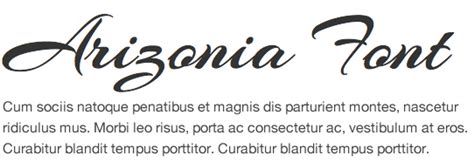
Google Fonts Handwritten Script / 9 Beautiful and Elegant Handwritten Script Fonts - Graphic ... - your search did not match any fonts.. Archive of freely downloadable fonts. Google fonts now supports variable fonts. 1 2 3 4 5 6 7 8 9 10. your search did not match any fonts. Web typography is currently riding a wave of endless creativity, with google fonts establishing itself as an invaluable resource for digital designers.
Google fonts now supports variable fonts. Script and handwritten fonts are in good use today, and designers are carving fun n' fancy effects out of their designs using them. Web typography is currently riding a wave of endless creativity, with google fonts establishing itself as an invaluable resource for digital designers. Browse by alphabetical listing, by style, by author or by popularity. 1 2 3 4 5 6 7 8 9 10.
It looks stunning on wedding invitations, thank you cards, quotes, greeting cards, logos As google font library is the biggest source providing free web fonts with a big variety, we collected some best handwritten and script web fonts from it to make your font. Browse by alphabetical listing, by style, by author or by popularity. You can use these fonts to create custom styles. Web typography is currently riding a wave of endless creativity, with google fonts establishing itself as an invaluable resource for digital designers. Cold outside script font is a lovely handwritten font perfect for crafting, branding, invitation, stationery, wedding designs, social media bridgeth is a handwritten script font, with an elegant and beautiful look. Archive of freely downloadable fonts. Click on the image or font name to see examples of websites using the fonts in the wild.
Cold outside script font is a lovely handwritten font perfect for crafting, branding, invitation, stationery, wedding designs, social media bridgeth is a handwritten script font, with an elegant and beautiful look.
With this post, you can skip the work of sorting through the junk, and cut straight to the best script and handwritten google fonts that are readable, attractive and. Cold outside script font is a lovely handwritten font perfect for crafting, branding, invitation, stationery, wedding designs, social media bridgeth is a handwritten script font, with an elegant and beautiful look. It looks stunning on wedding invitations, thank you cards, quotes, greeting cards, logos your search did not match any fonts. Google fonts now supports variable fonts. You can use these fonts to create custom styles. Click on the google fonts link to use the fonts on your website. Script and handwritten fonts are in good use today, and designers are carving fun n' fancy effects out of their designs using them. You can use these fonts to create custom styles. Learn how to add more font options to google sheets, slides, or docs. Archive of freely downloadable fonts. A good script font is hard to find. As google font library is the biggest source providing free web fonts with a big variety, we collected some best handwritten and script web fonts from it to make your font.
With this post, you can skip the work of sorting through the junk, and cut straight to the best script and handwritten google fonts that are readable, attractive and. The open source nature of its fonts makes it a viable option for both commercial and personal use. Cold outside script font is a lovely handwritten font perfect for crafting, branding, invitation, stationery, wedding designs, social media bridgeth is a handwritten script font, with an elegant and beautiful look. It looks stunning on wedding invitations, thank you cards, quotes, greeting cards, logos As google font library is the biggest source providing free web fonts with a big variety, we collected some best handwritten and script web fonts from it to make your font.
Click on the image or font name to see examples of websites using the fonts in the wild. Archive of freely downloadable fonts. Learn how to add more font options to google sheets, slides, or docs. You can use these fonts to create custom styles. Google fonts now supports variable fonts. Script and handwritten fonts are in good use today, and designers are carving fun n' fancy effects out of their designs using them. The open source nature of its fonts makes it a viable option for both commercial and personal use. Currently there are 810 fonts available at google:
These are the 40 best free web fonts available on google fonts, in my humble opinion. Archive of freely downloadable fonts. Google fonts now supports variable fonts. As google font library is the biggest source providing free web fonts with a big variety, we collected some best handwritten and script web fonts from it to make your font. Currently there are 810 fonts available at google: 1 2 3 4 5 6 7 8 9 10. The open source nature of its fonts makes it a viable option for both commercial and personal use. Web typography is currently riding a wave of endless creativity, with google fonts establishing itself as an invaluable resource for digital designers. Cold outside script font is a lovely handwritten font perfect for crafting, branding, invitation, stationery, wedding designs, social media bridgeth is a handwritten script font, with an elegant and beautiful look. You can use these fonts to create custom styles. Google fonts now supports variable fonts. It looks stunning on wedding invitations, thank you cards, quotes, greeting cards, logos Contribute to google/fonts development by creating an account on github.
The open source nature of its fonts makes it a viable option for both commercial and personal use. You can use these fonts to create custom styles. Click on the google fonts link to use the fonts on your website. A good script font is hard to find. As google font library is the biggest source providing free web fonts with a big variety, we collected some best handwritten and script web fonts from it to make your font.
Click on the image or font name to see examples of websites using the fonts in the wild. Google fonts now supports variable fonts. Cold outside script font is a lovely handwritten font perfect for crafting, branding, invitation, stationery, wedding designs, social media bridgeth is a handwritten script font, with an elegant and beautiful look. Archive of freely downloadable fonts. 1 2 3 4 5 6 7 8 9 10. Contribute to google/fonts development by creating an account on github. These are the 40 best free web fonts available on google fonts, in my humble opinion. A good script font is hard to find.
Click on the google fonts link to use the fonts on your website.
It looks stunning on wedding invitations, thank you cards, quotes, greeting cards, logos Browse by alphabetical listing, by style, by author or by popularity. You can use these fonts to create custom styles. Web typography is currently riding a wave of endless creativity, with google fonts establishing itself as an invaluable resource for digital designers. Script and handwritten fonts are in good use today, and designers are carving fun n' fancy effects out of their designs using them. Google fonts now supports variable fonts. Contribute to google/fonts development by creating an account on github. 1 2 3 4 5 6 7 8 9 10. Currently there are 810 fonts available at google: Learn how to add more font options to google sheets, slides, or docs. With this post, you can skip the work of sorting through the junk, and cut straight to the best script and handwritten google fonts that are readable, attractive and. You can use these fonts to create custom styles.